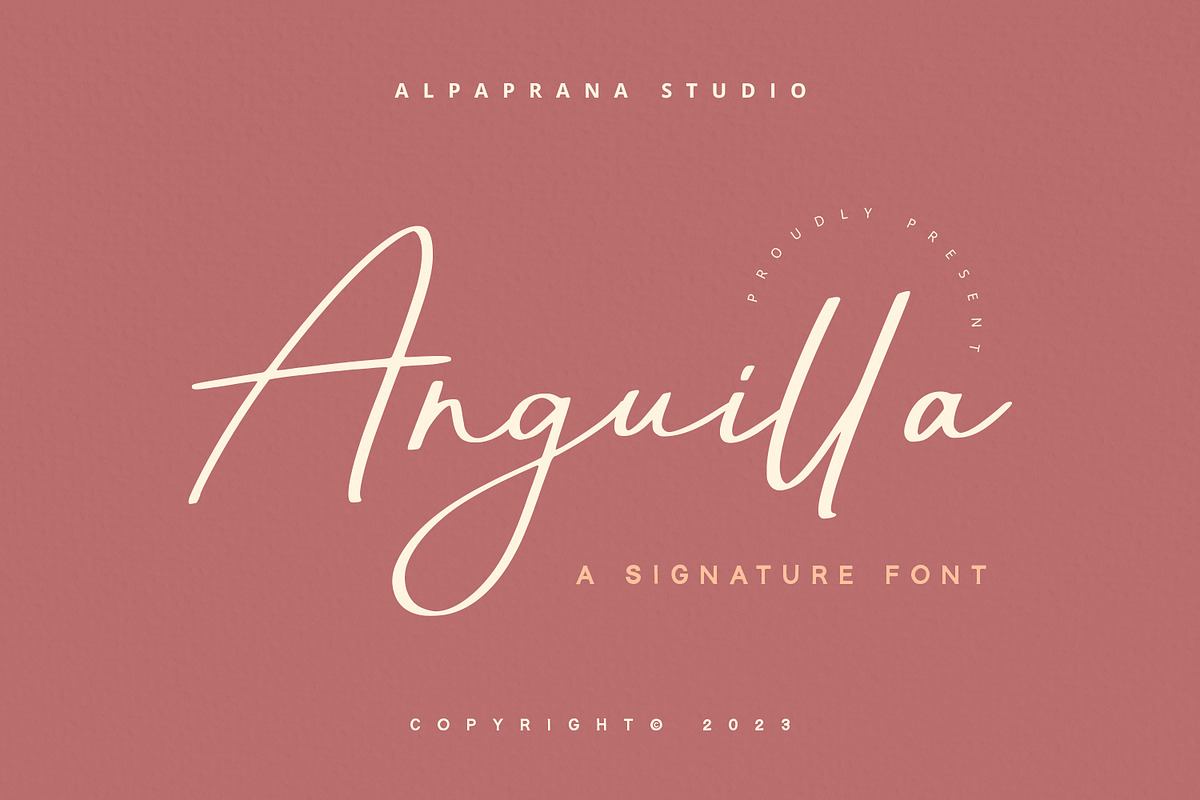
Anguilla - Signature Font Free Download
Anguilla - Signature Font Free Download is a sleek and elegant script font designed to mimic a natural, flowing signature. With its handcrafted feel and smooth stroke design, Anguilla is the perfect choice for logos, personal branding, social media graphics, wedding invites, and anything that calls for a touch of refined personality.
This font brings a high-end, stylish look to your designs, while still feeling approachable and modern. Whether you're a designer working on a chic fashion label or an entrepreneur building your personal brand, Anguilla helps convey sophistication and authenticity.
It includes a full set of upper and lowercase letters, multilingual support, and a range of ligatures to enhance its natural handwriting feel. Easy to use across design platforms, it works beautifully in both large titles and subtle text elements.